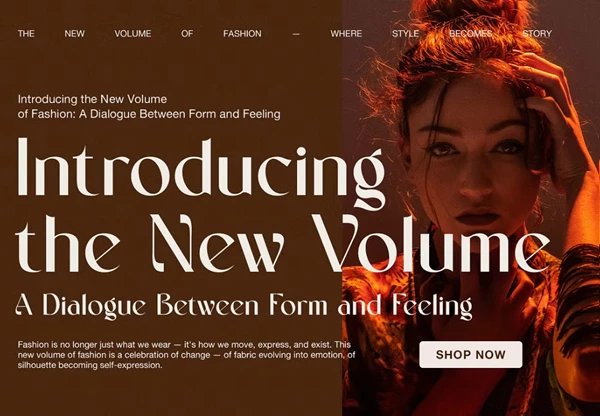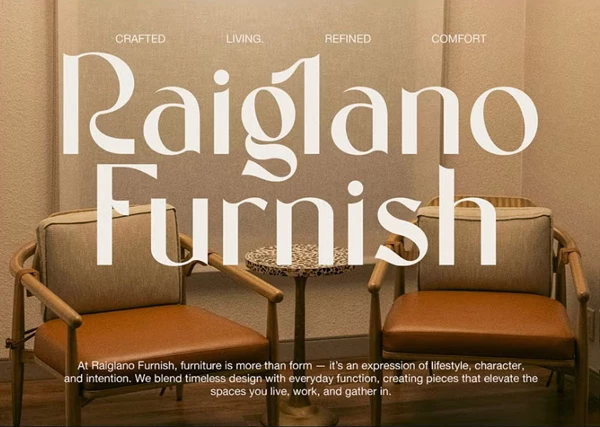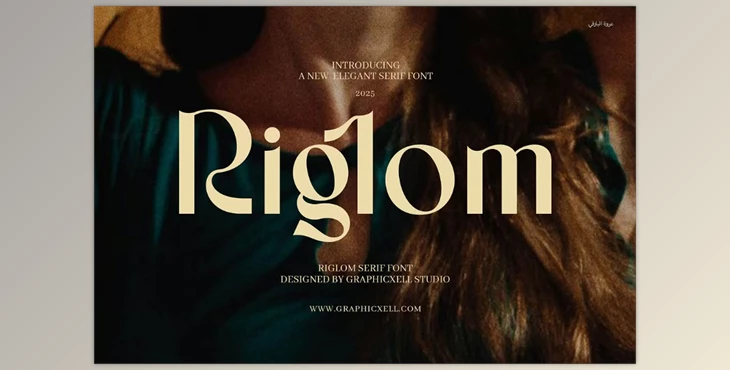
Riglom Elegant Sans Serif Font:
The Riglom Elegant Sans Serif Font epitomizes a typeface that retains its sophisticated nature by marrying timeless elements with contemporary ones. Tailored to add creativity with elegance and personality, Riglom exhibits refined lines, sharp details, and delicate curves to make a graceful and high-end impression. It works perfectly for forward-thinking brands and designers who want their logos crafted with a visual style that blends a classic approach.
This font is truly modern yet versatile enough for almost any use, including logo design, brand identity, website headers, packaging, editorial pieces, and marketing pieces. Riglom's Sans Serif font Riglom Elegant is used to enhance fashion campaign advertisements and cosmetics branding and extends to menus of restaurants and luxury advertisements.
From lowercase to uppercase, numbers, and even punctuation, Riglom is multilingually equipped for wide-ranging design needs. Combining tradition and innovation with striking letterforms gives class along with effortless elegance to any editorial wedding stationery, social media graphics, and advanced design language promotional materials. The intermixed thick and thin lines of each letter render drama appropriate to the enduring visibility of the letters for print and non-print media, making Riglom viable in numerous formats and sizes.
Riglom is memorable thanks to its alluring and bold architectural features that exude quiet luxury. It meets the needs of contemporary designers who wish to show elegance, creativity, and professionalism in their visual narratives. Riglom can be incorporated into minimalist designs as well as striking brand identities, ensuring that your designs have a refined artistic accent. You'll capture added attention through versatility and elegance while simultaneously capturing attention through your viewers and elegance.
"Riglom Elegant Sans Serif Font" Samples: